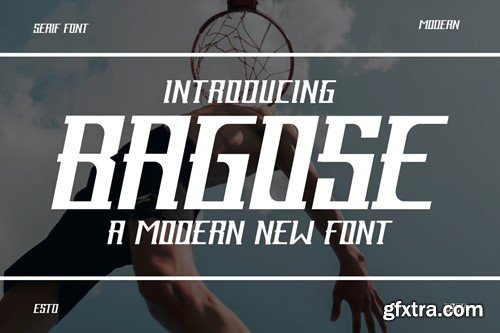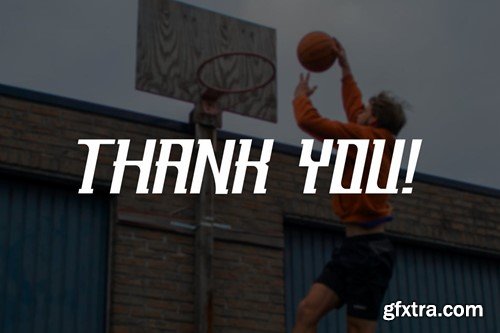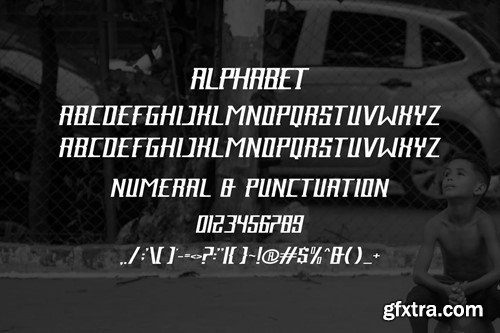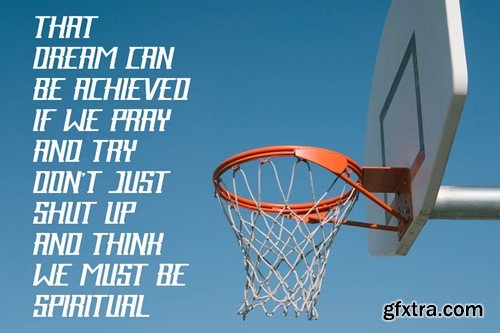
Bagose - 运动字体 JAX8F7P
Bagose - Sport Font
Introducing Bagose Modern Serif Font. Bagose is a modern and simple font, best used as a display for headings, logos, branding, magazines, product packaging and invitations. Bagose come with clean lines and smooth curves give any project an extra touch of class. What you get: Thank you.